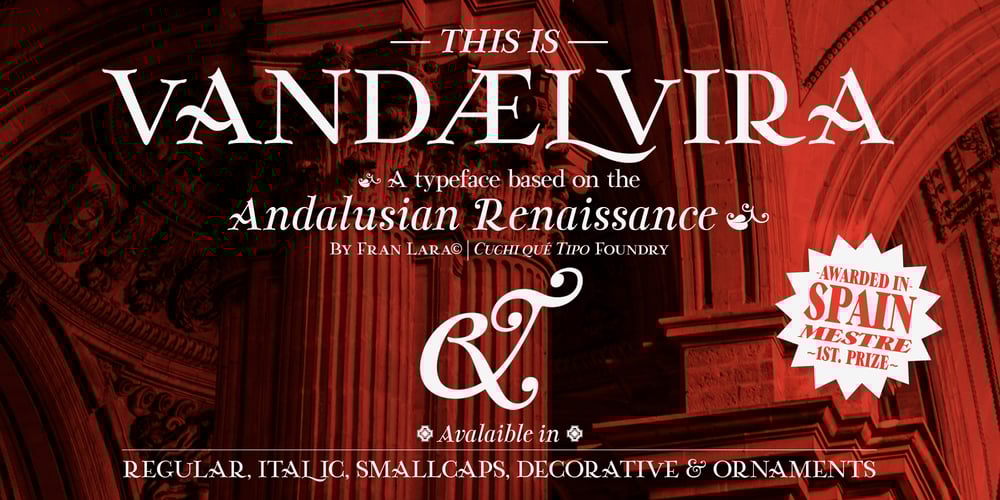
Vandelvira Font Family was designed by Fran Lara and published by Cuchi, qué tipo. Vandelvira contains 2 styles and family package options. Vandelvira is a typographic project that delves into the historical legacy of the province of Jaén (northern Andalusia), aimed to spread the culture and tradition of this territory, based on one of its greatest artistic exponents: the architect Andrés de Vandelvira. In the forms and ornaments of these letters, the characteristics of his work during the 16th century are graphically reflected, and it serves as a memory and honor, as a historical legacy of this marvelous “genius loci” of the Spanish Renaissance.363 CHARACTERS / 636 GLYPHS / 2 INSTANCES (Regular & Italic) / 37 LANGUAGES / 14 LAYOUT FEATURES / Designed by Fran Lara in 2020 – “Cuchi qué Tipo” Foundry